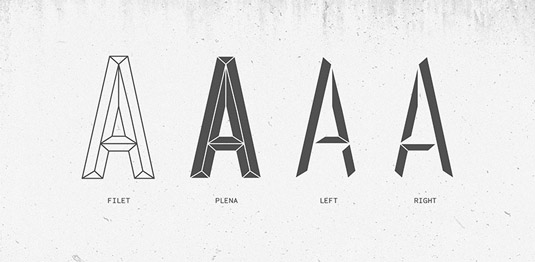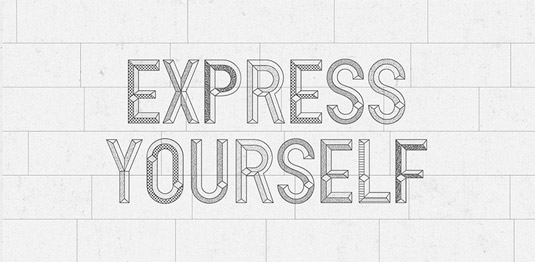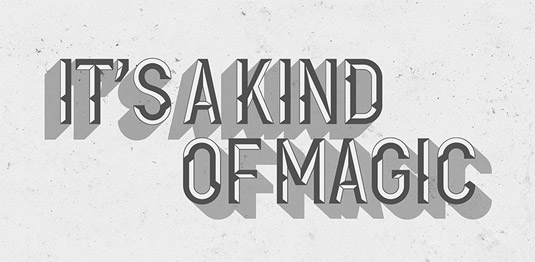
Font of the day: Optilus
Every day we showcase the best fonts on the web. Today it's Optlius by Toormix studio.
Optlius by Toormix studio
Derived from the words optical and illusion, Optilus is a display font, designed by Toormix studio. Available in four weights, Optilus is a bold, clean design, which is great for headlines and posters and more.